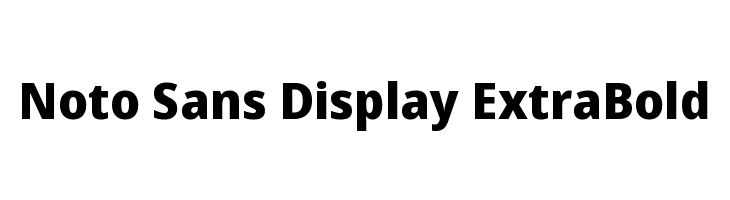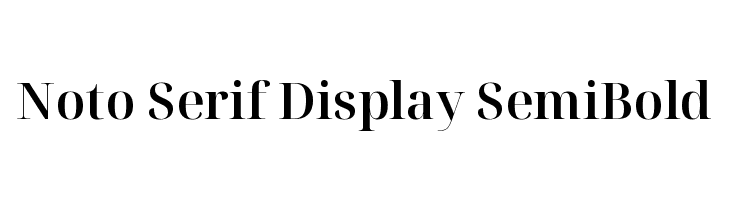
A classic serif typeface with elegant detailing and balanced proportions.
A bold, decorative font with a patriotic theme featuring stars and stripes.
A refined, light serif font with a condensed and elegant style.
A modern, semi-condensed sans-serif font with medium weight and italic style.
A refined serif font with semi-condensed letterforms and elegant contrast.
A bold, modern sans-serif typeface with strong visibility and clean design.
A high-contrast serif font with elegant, bold strokes and refined details.
A bold, condensed font with a strong, modern appearance.
A modern, semi-bold sans-serif typeface with clean lines and excellent readability.